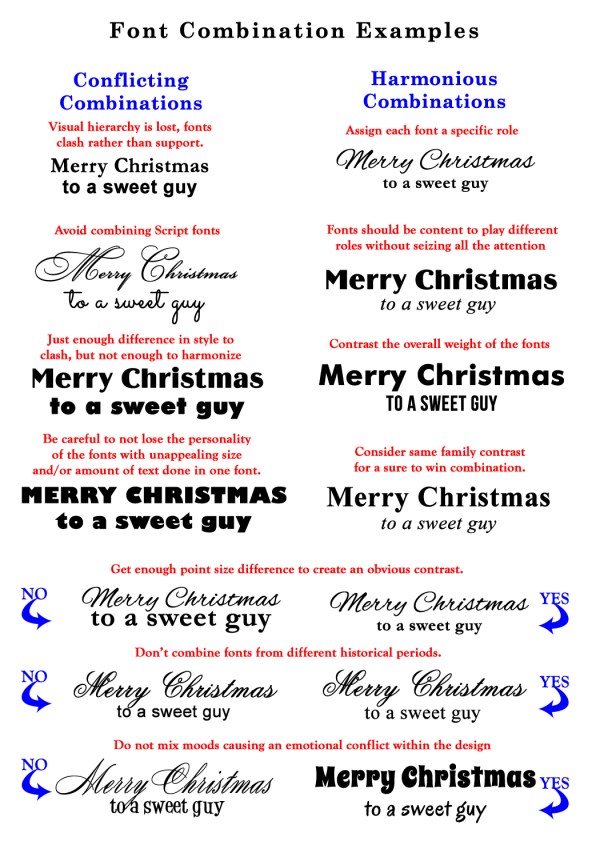
Dash of Inspiration: Typography – Font Combination
Typography: Font Combination
Let’s keep this series going by moving into the TYPOGRAPHY grouping of the Submission Guidelines, and first up is:
TYPOGRAPHY: Font Combination
The Submission Guidelines state this:
Usually one typeface will do, however if you choose to combine fonts in a single design, the general rule is never more than two and if you combine … either keep it in the same family OR change it a lot! Don’t use slight variations in typeface when combining. Be brave or don’t tackle it at all. Declines may include, but are not limited to: combinations of fonts which cause chaos in the image, etc.
These examples and tips are what GCU speaks to in their submission guidelines. Incorporating great typeface combinations into your card designs is an art, not a science. As with all forms of art, there are no absolute rules to follow, but it is crucial that you understand and apply best practices when combining fonts within your designs.
- The farther apart the typeface styles you wish to combine are the more luck you’ll have creating a pleasing design. Fonts that are too similar look horrible together. If you are combining fonts you want to shoot for contrast and harmony while avoiding that middle ground which will result in conflict.
- Avoid combining Script fonts, unless they are radically different, they will conflict with each other and cause a chaotic design.
- When choosing to combine fonts, get enough point size difference between the fonts to create an obvious contrast.
- Assign each font choice to a specific role within your design for consistency and harmony.
- When looking for fonts to combine within your design, contrast the overall weight of the fonts. If you use two fonts with a very heavy presence, they will just look like they are mad at each other and fighting a war within your design.
- A good designer pays close attention to avoid that which make your eyes dart all over the page rather than settle and move through the design. If your eyes are unsettled, something in your design is in conflict.
- For a simple and professional look, consider using different fonts from the same typeface. Such as Times Roman BOLD with Times Roman Italic.
- Try not to combine fonts from different historical periods. For example Old Script looks better with an old font like Goudy Old Style which demonstrates a greater refinement than say Arial.
- Watch your font choices for individual personalities whose traits may unpleasantly multiply with large amounts of text, becoming obnoxious and repetitious, or loose it’s personality altogether in a font size that is too small.
- Look for a balance of neutral contrast within the fonts in a single design. You want them to both be content to play different roles without seizing all the attention or drowning out one another.
- Just as elements within your design should not mix moods causing an emotional conflict with the viewer, fonts also follow this same suit. Either pair the same general mood in your fonts, or choose one moody font and pair it with a neutral personalty.
- In order for the card to be legible and therefore marketable, the roles assigned to different fonts within the design must be clear. Your typeface choices need to be legible and have enough contrast or the visual hierarchy will break down.
Thank you! Another one I want to bookmark. I have a card set out there that I had worked so hard on last year that even though it was approved, it bugs me to this day. Finally, because of this article I can pinpoint what’s wrong and can go fix the font 😀
You’re welcome Tracie and delighted to hear it sparked a light-bulb moment to fix a card that hasn’t been sitting right 🙂
Thank you for another great article! Obviously a lot of thought has gone into this. Thanks a lot for the clear and useful advise!